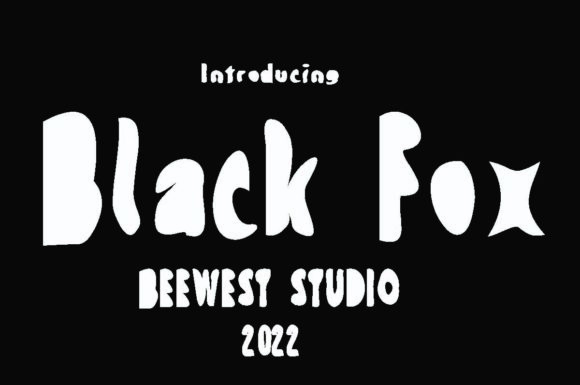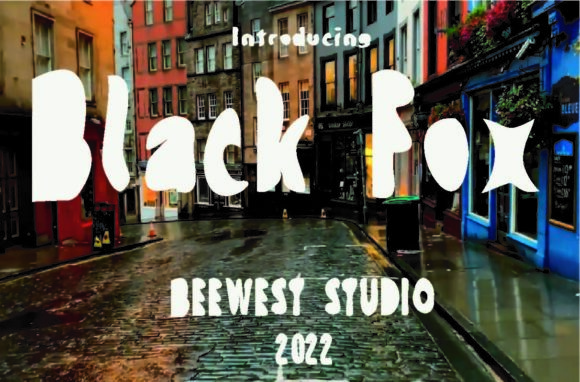
The Ultimate Display Font: A Deep Dive into Black Fox
I’ll never forget the time I was working on a branding project for a trendy clothing line. My client wanted a bold, eye-catching font that would make their logo stand out on social media, apparel, and in-store promotions. After hours of scouring font libraries and testing different options, I stumbled upon Black Fox – a game-changing display font that exceeded my client’s expectations and mine!
An Honest Review of Black Fox
So, what makes Black Fox so special? Let’s dive into the good stuff and a few quirks to consider.
What I Love About Black Fox ✨
• 💥 **Bold and Thick Lettering**: Black Fox is a bold and thick lettered display font, perfect for making a statement in logotypes, headlines, and corporate identities.
• 🎨 **Versatility**: Its robust design makes it suitable for various creative projects, including apparel, posters, music and movie titles, games, magazines, books, comics, cartoons, YouTube and Instagram content, and websites.
• 👍 **Easy to Read**: Despite its boldness, Black Fox remains surprisingly legible, even at smaller sizes.
• 💻 **OpenType Features**: This font comes with a range of OpenType features, including glyphs and stylistic alternates, giving you plenty of creative options.
• ⚠️ **Limited Use Cases for Body Text**: Due to its bold nature, Black Fox might not be the best choice for body text or lengthy paragraphs.
• 🤔 **Kerning Issues**: As with any font, you might encounter kerning issues when pairing Black Fox with other fonts or at certain sizes.
A Practical Guide to Using Black Fox
Now that you’re excited about Black Fox, let’s explore how to make the most of it on popular design platforms.
The Backstory of Black Fox: Designer Inspiration
While the origins of Black Fox are shrouded in mystery, it’s easy to imagine a designer creating this font with a passion for bold, statement-making typography. Perhaps they were inspired by classic graffiti or urban signage, aiming to craft a font that would stand out in any design.
What is Black Fox best used for? Black Fox is ideal for logotypes, headlines, corporate identities, and any project requiring a bold, eye-catching font.
Is Black Fox suitable for body text? No, due to its bold nature, Black Fox is not recommended for lengthy body text. It’s best used for titles, headings, or short paragraphs.
Does Black Fox come with OpenType features? Yes, Black Fox includes a range of OpenType features, such as glyphs and stylistic alternates, to enhance your design work.
In conclusion, Black Fox is a versatile and powerful display font perfect for designers, crafters, and creative hobbyists looking to make a statement. With its bold and thick lettering, OpenType features, and wide range of applications, it’s an excellent addition to any design toolkit.